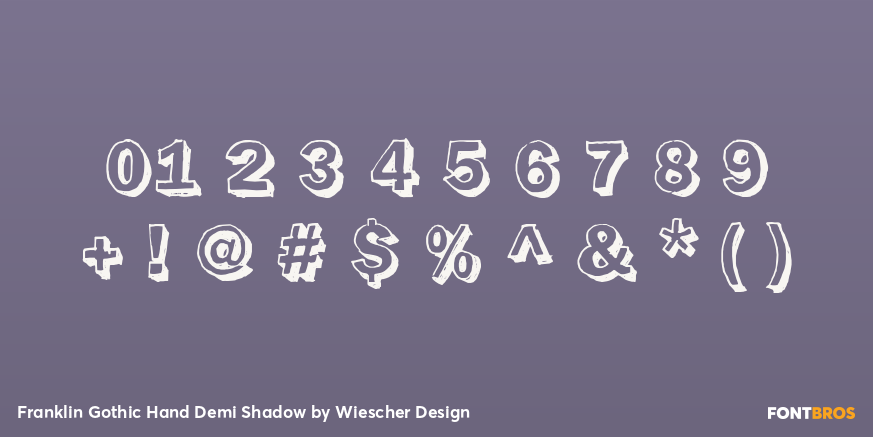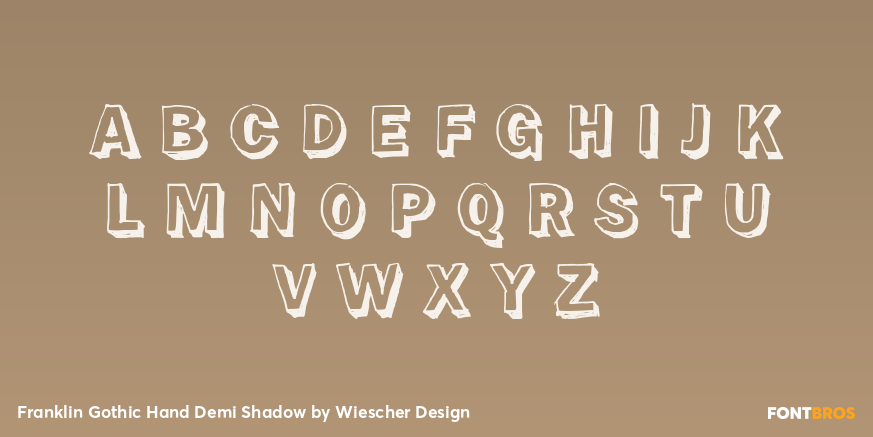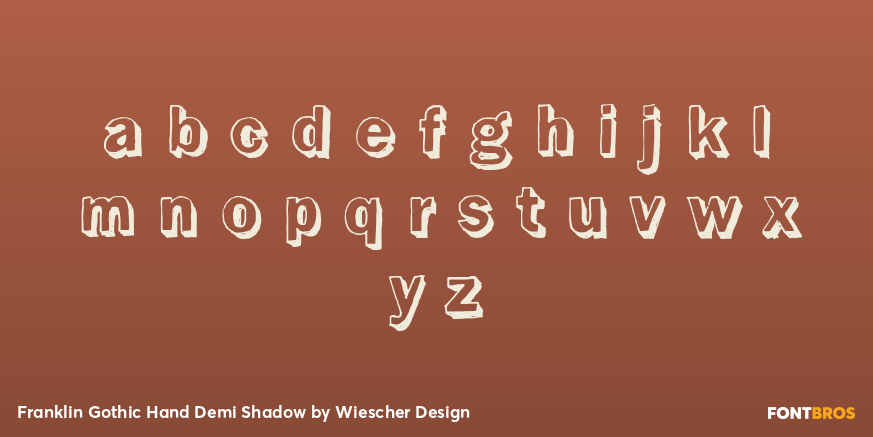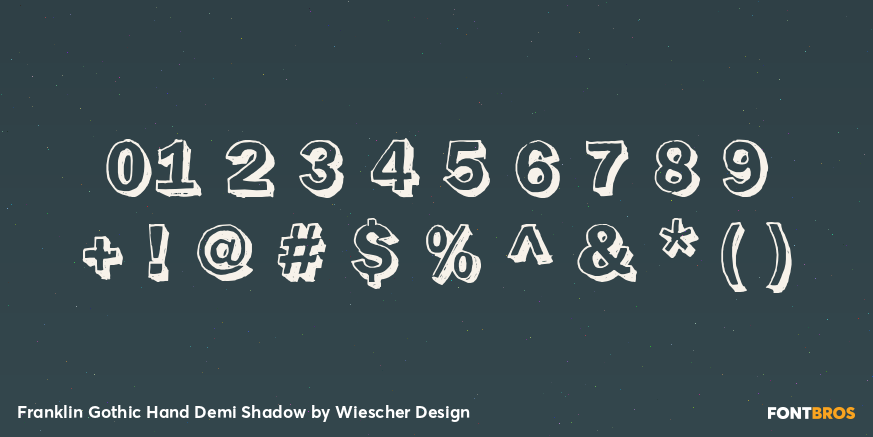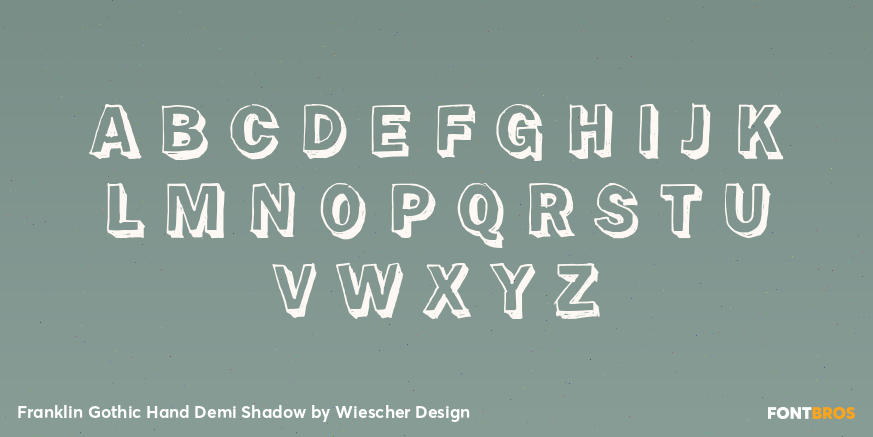
Franklin Gothic Hand Demi Shadow
Font Family by Wiescher Design
Franklin Gothic Hand Demi Shadow is another one in my series of hand-drawn fonts from way back in time ? before computers changed the way we worked in advertising.
This one was especially used for what we called "pork-belly-ads": ads for food-stores! I think it is very useful for all kinds of advertising that demands a lot of bang!